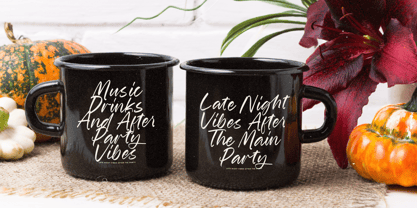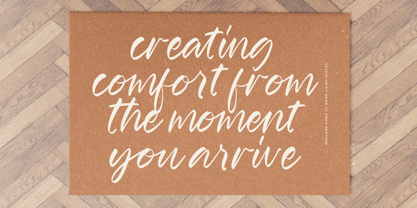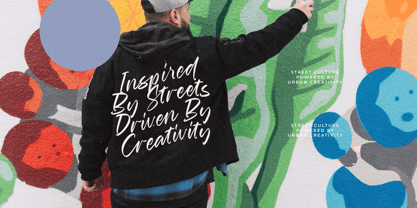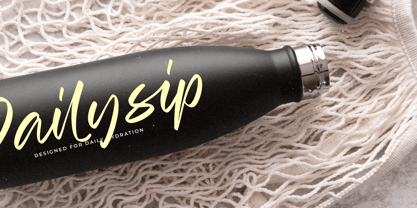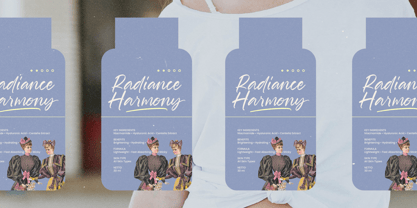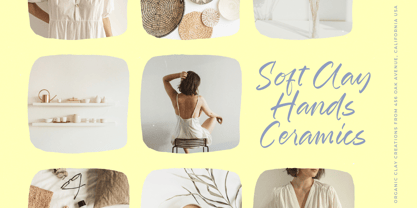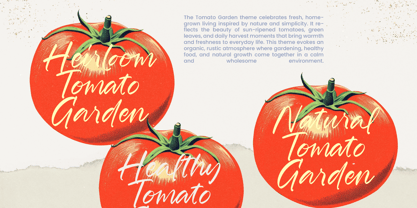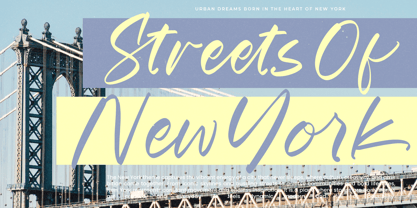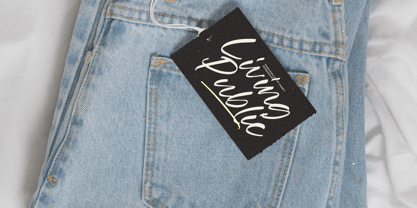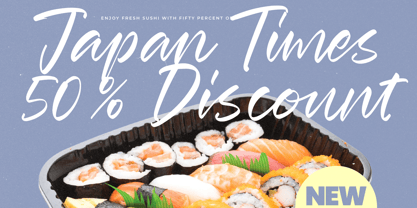
Fordsmith
The Fordsmith Font Family was designed by Heru Utama Putra and published by Stylishtype Studio. Fordsmith contains 2 styles and family package options.
Fordsmith is a modern handwritten script font that blends relaxed urban energy with elegant handcrafted strokes. Designed with smooth curves, expressive movement, and a natural handwritten rhythm, Fordsmith brings a refined yet artistic personality to your designs. With 541 glyphs, 169 ligatures, and 40 stylish alternates, this font delivers exceptional flexibility for branding, packaging, posters, social media graphics, and editorial layouts—complete with multilingual support for global reach.